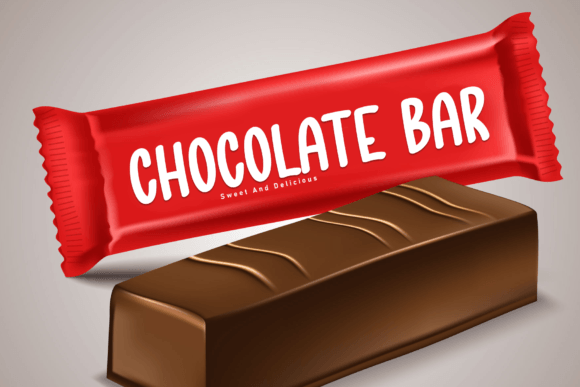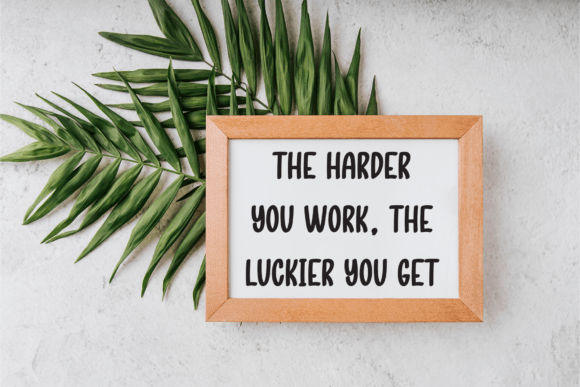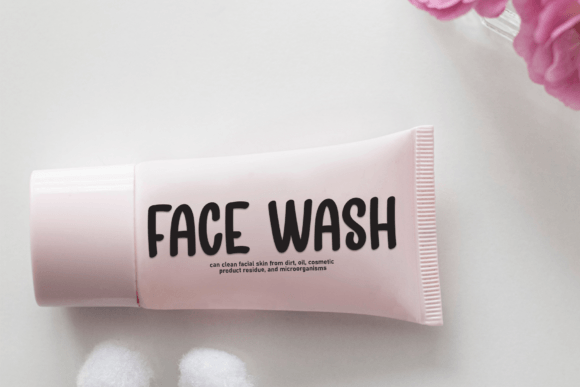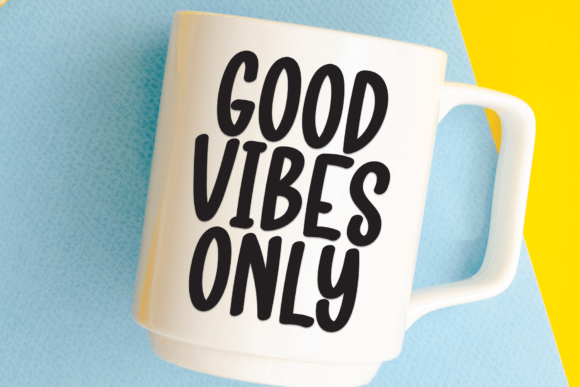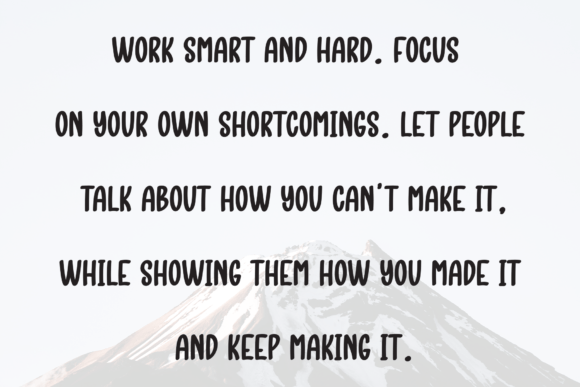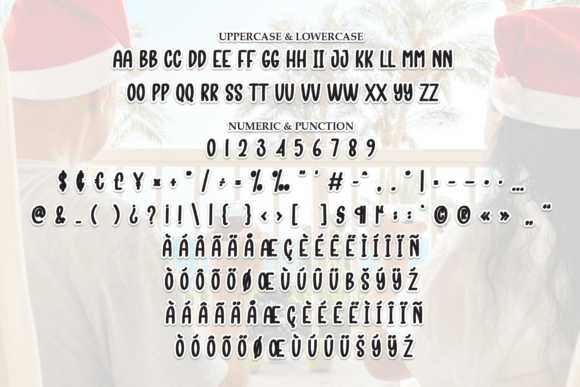
Introduction to Christmas Staycation Font
As the holiday season approaches, many of us find ourselves scrambling to create the perfect Christmas cards, invitations, and gift tags. But amidst the chaos, there’s one thing that can make our creative projects truly shine: the right font. For designers and crafty enthusiasts alike, finding that special font can be a game-changer. And today, we’re excited to introduce you to the Christmas Staycation Font – a sweet and friendly handwritten font that’s sure to bring a smile to your face.
Whether you’re working on a high-quality design project or just need a quick and easy way to add a touch of personality to your holiday cards, the Christmas Staycation Font is the perfect resource. With its transparent background and versatile design, this font is perfect for any creative project, from wedding invitations to gift tags and more.
Key Features of Christmas Staycation Font
- High-quality design resource with a festive and fun design, perfect for creative projects and holiday-themed events.
- Unique and customizable design elements, including ornaments, snowflakes, and holly leaves, to add a personal touch to your project.
- Transparent background, allowing for easy layering and composition with other design elements, making it ideal for digital and print projects.
- Perfect for holiday-themed designs, such as Christmas cards, invitations, and social media graphics, as well as general winter and festive projects.
Honest Review: Christmas Staycation Font
The high quality of the font is evident, with clean lines and a clear, legible design. The transparent background allows for easy layering and customization, making it perfect for creative projects.
- ✨ High-quality design with clean lines and clear typography
- ✨ Transparent background for easy layering and customization
- ⚠️ Limited font styles and weights, which may not be suitable for complex designs
Overall, the Christmas Staycation Font is a great addition to any design collection, especially for personal projects or creative endeavors. While it has some limitations, its high quality and versatility make it a worthwhile download.
Tips for Getting the Most Out of the Christmas Staycation Font
Experiment with different font sizes and colors to create a unique design. Use the font in combination with other design elements to create a cohesive look.
The Christmas Staycation Font is perfect for creating Christmas-themed graphics, invitations, and social media posts. It’s also great for adding a festive touch to presentations, documents, and websites.